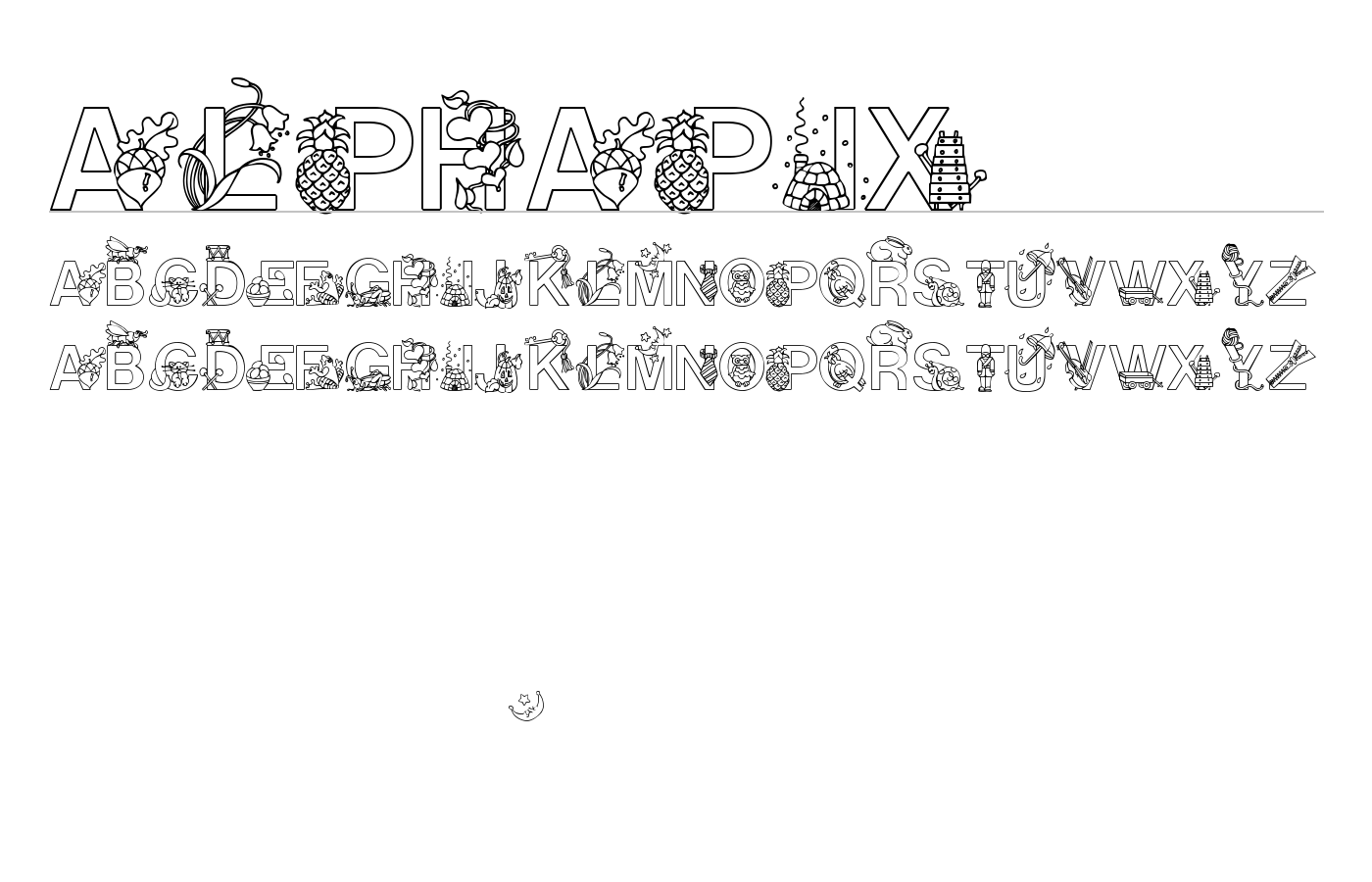
Alphapix is a playful and creative display font featuring bold, uppercase letters decorated with intricate thematic illustrations, blending geometric sans serif forms with detailed pictorial elements. Ideal for eye-catching headlines, posters, and branding where a fun, whimsical touch is desired, it brings a lively and imaginative personality to projects seeking uniqueness and visual interest. This font works best in decorative settings rather than body text due to its detailed design.
Alphapix Font
About Alphapix Font